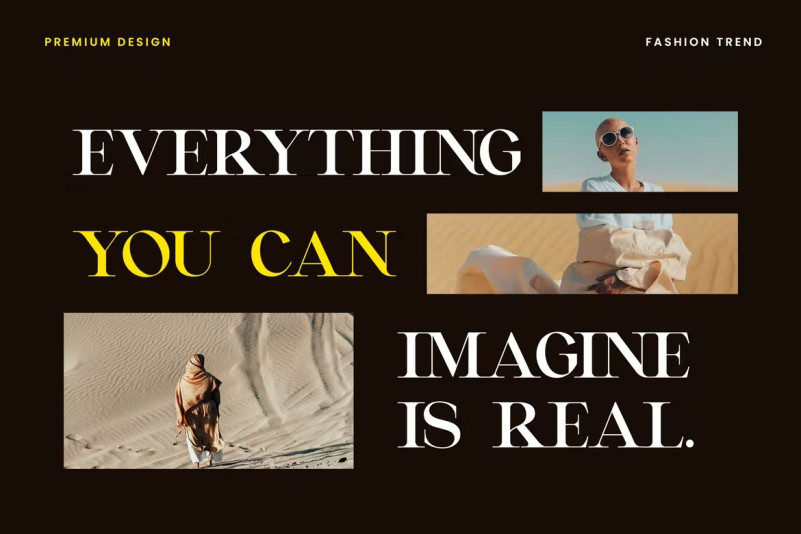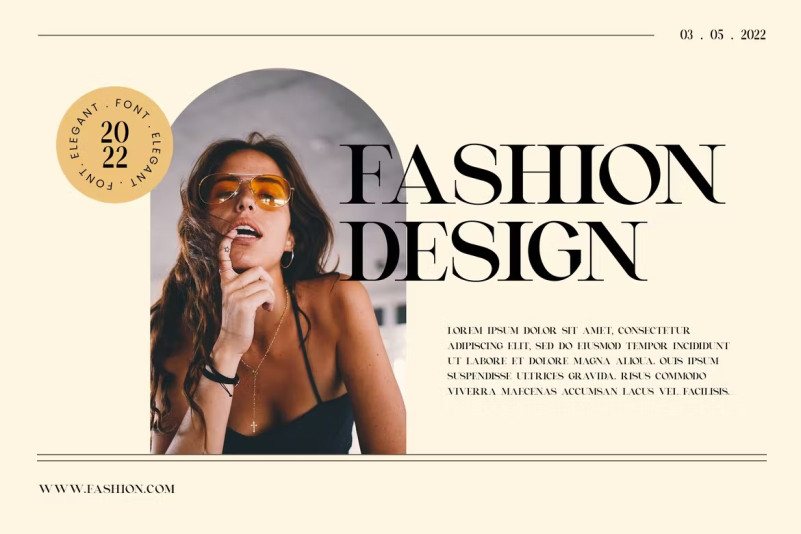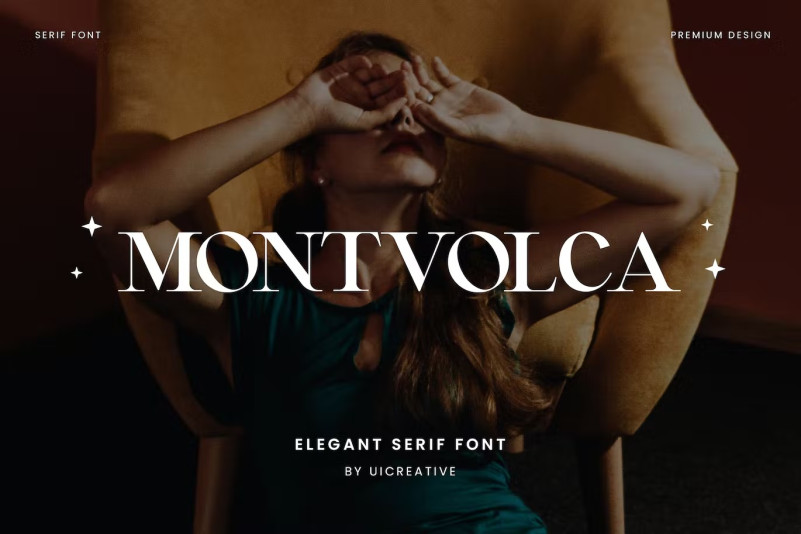
Montvolca elegant serif font
This is our new product, the name is Montvolca Elegant Serif Font . An elegant Serif font that is beautiful, classy, ​​elegant and modern. This font is ideal for a wide variety of projects, such as signature, stationery, logo, wedding, typographic quotes, magazine or book covers, website headers, apparel, branding, packaging design, etc. Additionally, fashion-related branding or editorial design exhibits qualities that are both masculine and